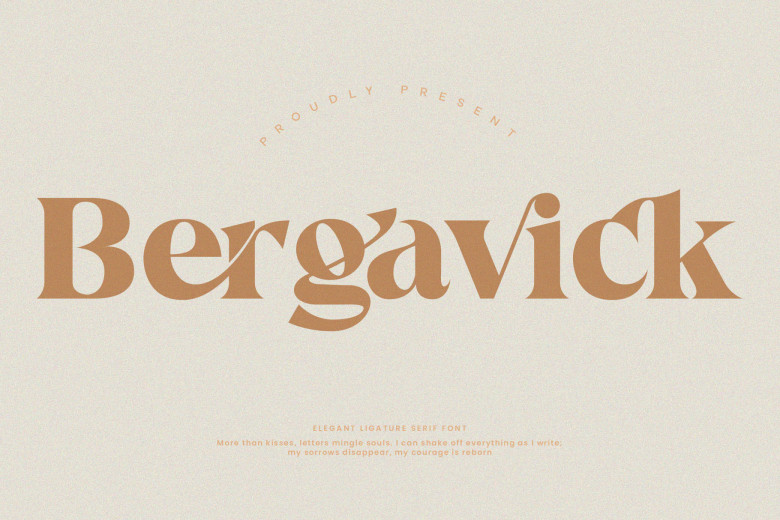
Bergavick Font
Bergavick Ligature Serif Font Encapsulating an eye-catching collection of letters is this striking font called Bergavick. Perfect for writing purposes that are modern yet eye-pleasing to the eyes, its neat lettering creates classic yet elegant writing experiences when used. Furthermore, with features such as its ligatures giving this font its contemporary appearance; perfect for use with future design requirements!
Bergavick Serif Font